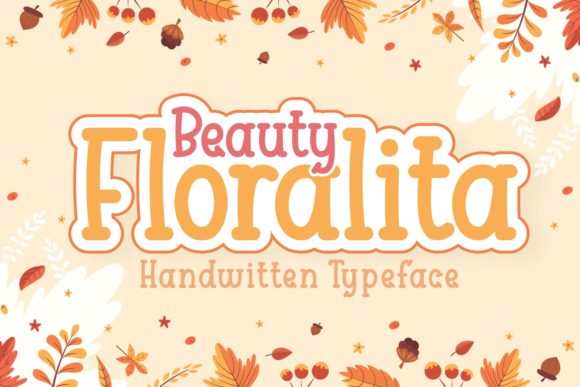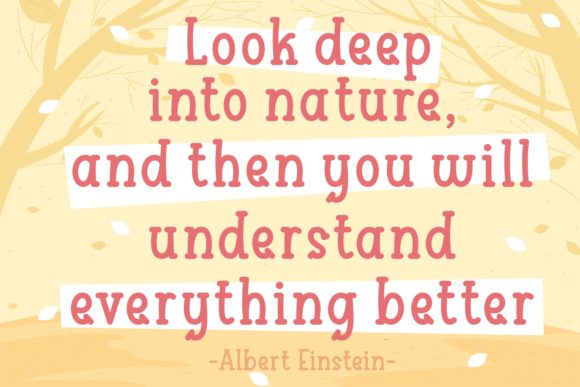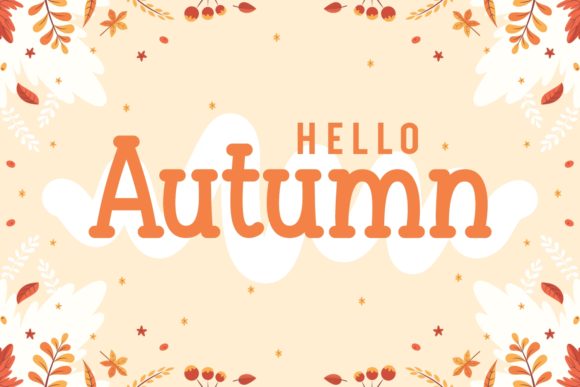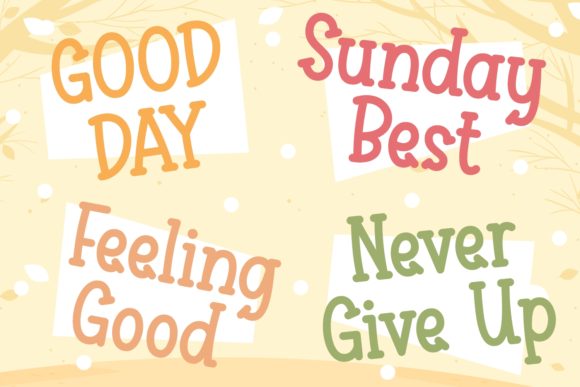
Beauty Floralita Font
About Beauty Floralita Font
Beauty Floralita is a sweet and simple handwritten font. Its neat and well balanced characters make this font fit for a wide pool of contexts.